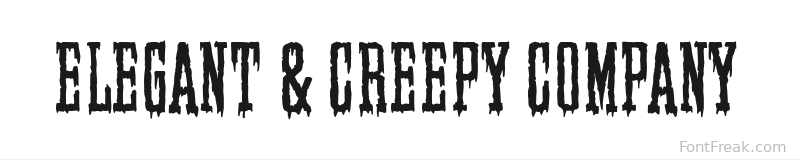
Elegant & Creepy Company
About Elegant & Creepy Company
The Elegant & Creepy Company font, crafted by woodcutter Manero, is a striking display typeface that seamlessly blends elegance with a touch of the macabre. This unique font is classified as a decorative style, characterized by its bold and dramatic letterforms that evoke a sense of intrigue and mystery. The stroke weight is notably varied, featuring thick, robust lines complemented by sharp, jagged edges that create a captivating contrast. The spacing between the letters is thoughtfully designed, allowing for both readability and an eye-catching visual impact. Decorative elements, such as dripping accents at the edges of the letters, enhance the font's overall eerie aesthetic, making it perfect for a range of creative projects.
This font is particularly suited for use in wedding invitations that aim to convey a whimsical yet sophisticated theme, as well as movie posters that require a blend of elegance and horror. Additionally, it can elevate the branding of themed restaurants, offering a unique flair to menus and signage. Graphic designers and content creators will find this font invaluable for crafting eye-catching social media graphics, book covers, or any project that demands a memorable and striking typographic presence.